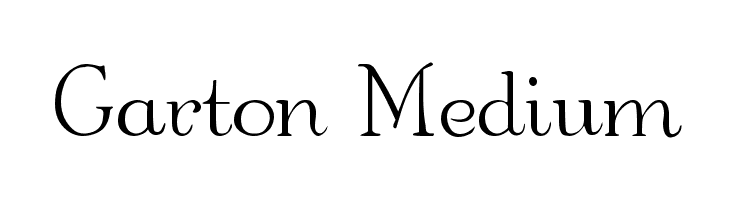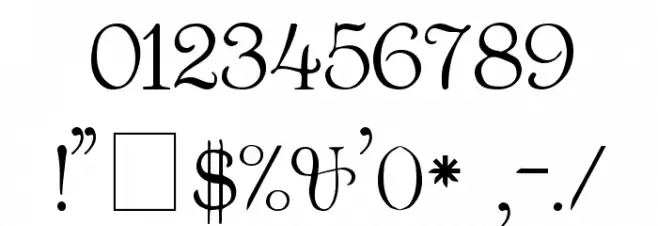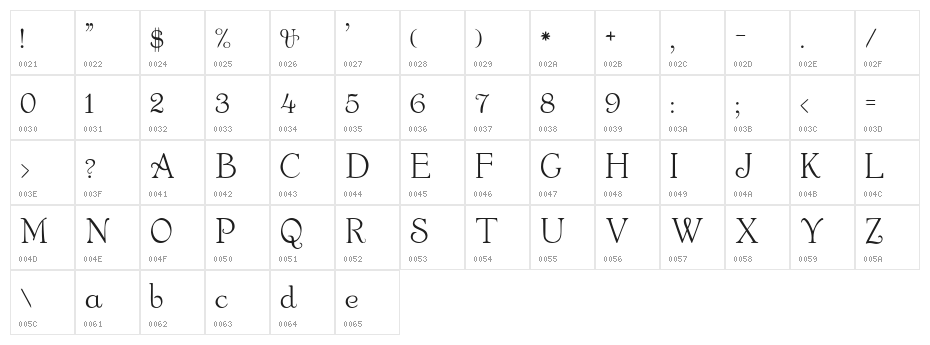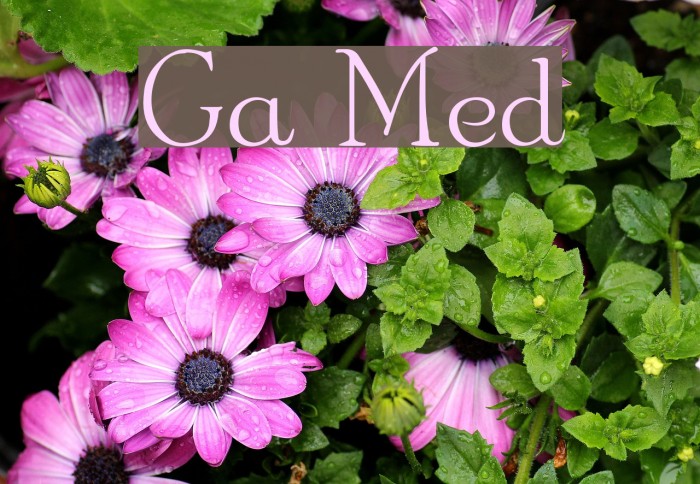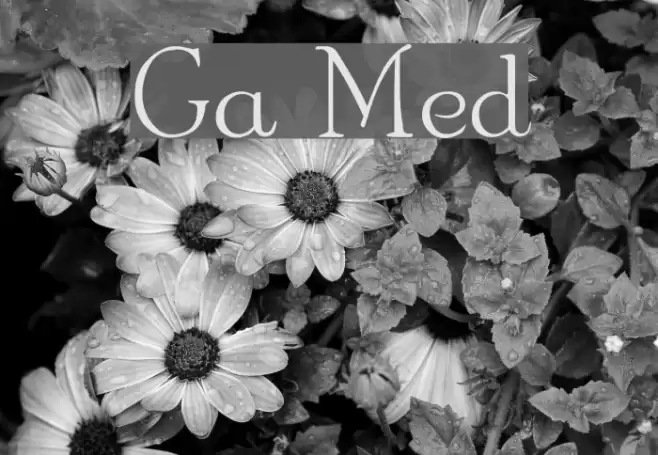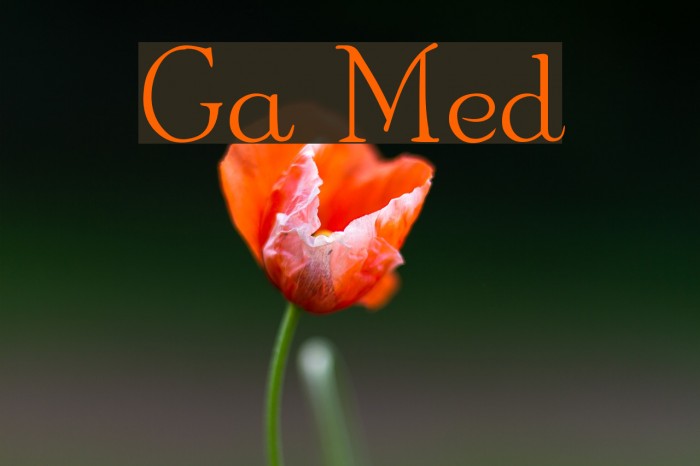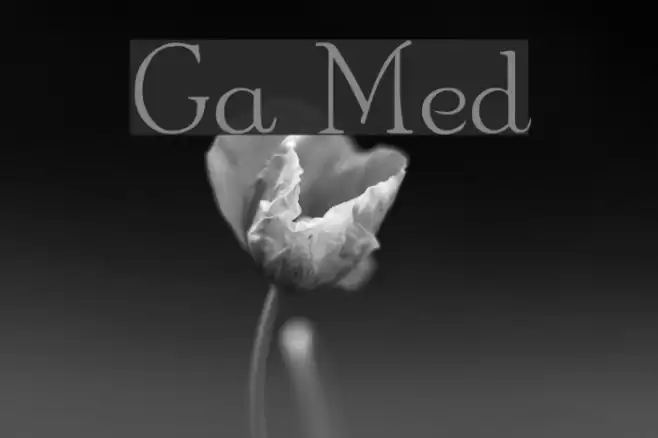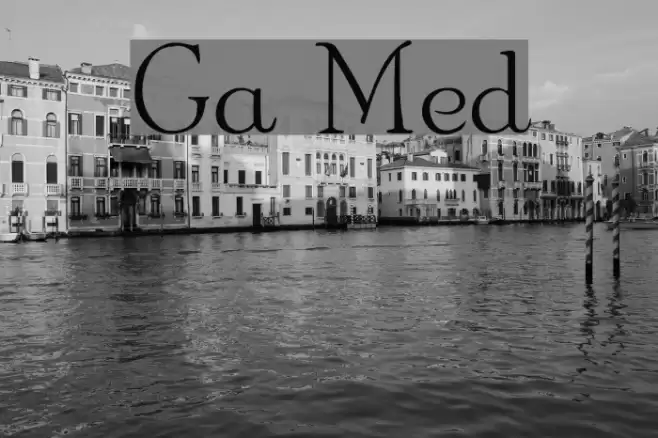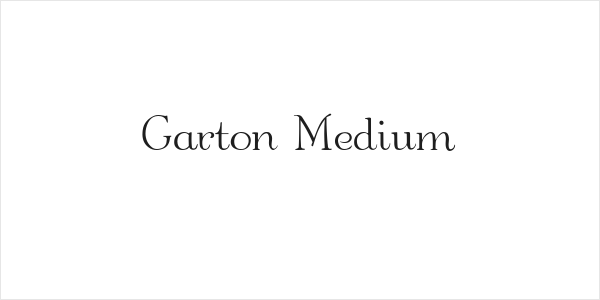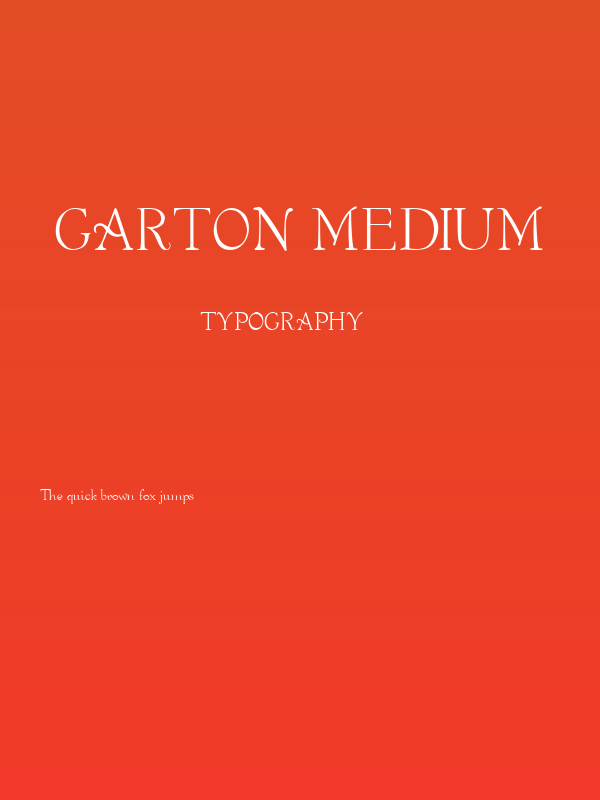
Garton Medium Font
Garton Medium Description
This font exhibits a classic serif style with elegant curves and a sophisticated appearance. The uppercase letters are distinct with sharp serifs and a slight flourish, particularly noticeable in letters like 'A', 'G', and 'Q'. The lowercase letters maintain a consistent style, with smooth transitions and gentle curves, giving them a refined look. The numerals are well-proportioned, with a traditional design that complements the overall aesthetic. The special characters are thoughtfully designed, maintaining the font's elegance and readability. This font is versatile, suitable for both formal and creative applications, offering a timeless appeal.
| Proposed Projects | Ideal for book covers, formal invitations, branding, and editorial design. |